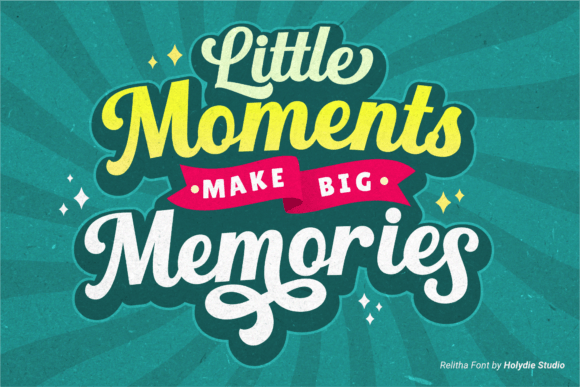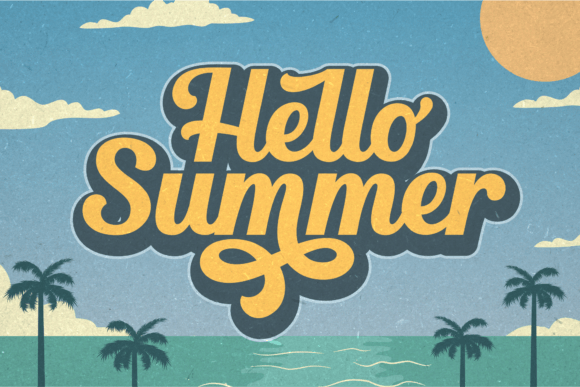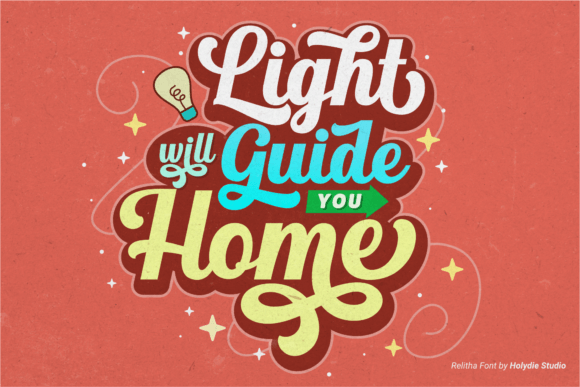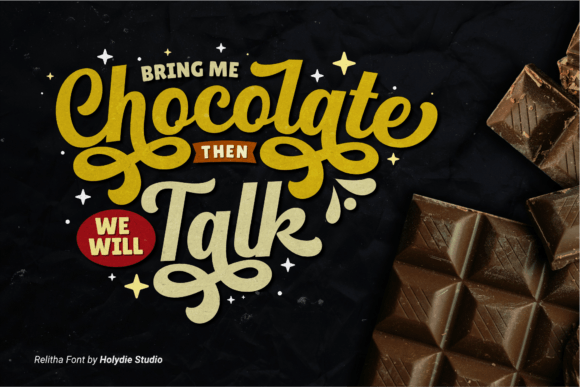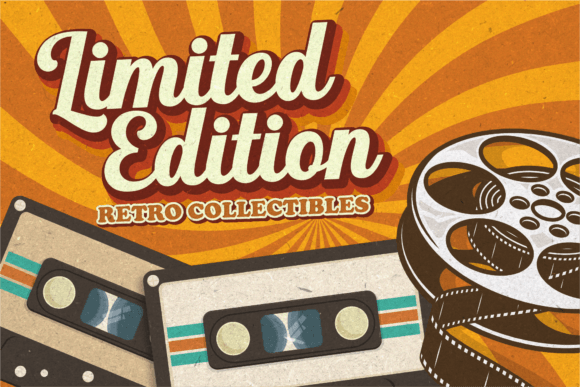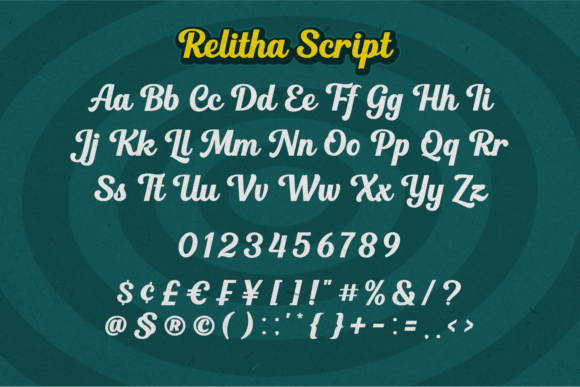
Introduction to Relitha Font
Relitha is a vintage retro font inspired by retro typography and lettering in the 70s and 80s combined with a bold typography style.
This font is perfect for vintage, groovy and retro designs, badges, logos, t-shirts, posters, branding, packaging, signage, book covers, and so much more This font is PUA encoded, which means you can access all of the glyphs and swashes with ease.